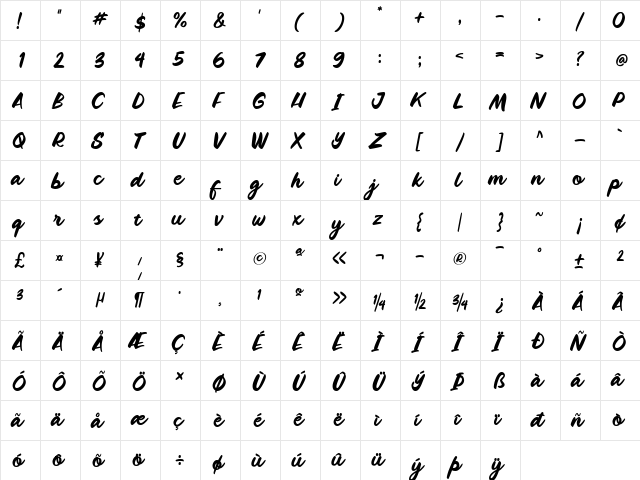
River Script Regular
Design Context for River Script Typeface
River Script brings a calligraphic fluidity to the page — its connecting strokes and expressive curves give it an unmistakably human quality.
Font Pairing: Combine River Script with a simple geometric sans for maximum contrast — the tension between flowing curves and clean structure is a classic typographic pairing.
Pro Tip: Use River Script for short runs of text — names, titles, or taglines. Extended body copy in script faces tires the eye quickly.